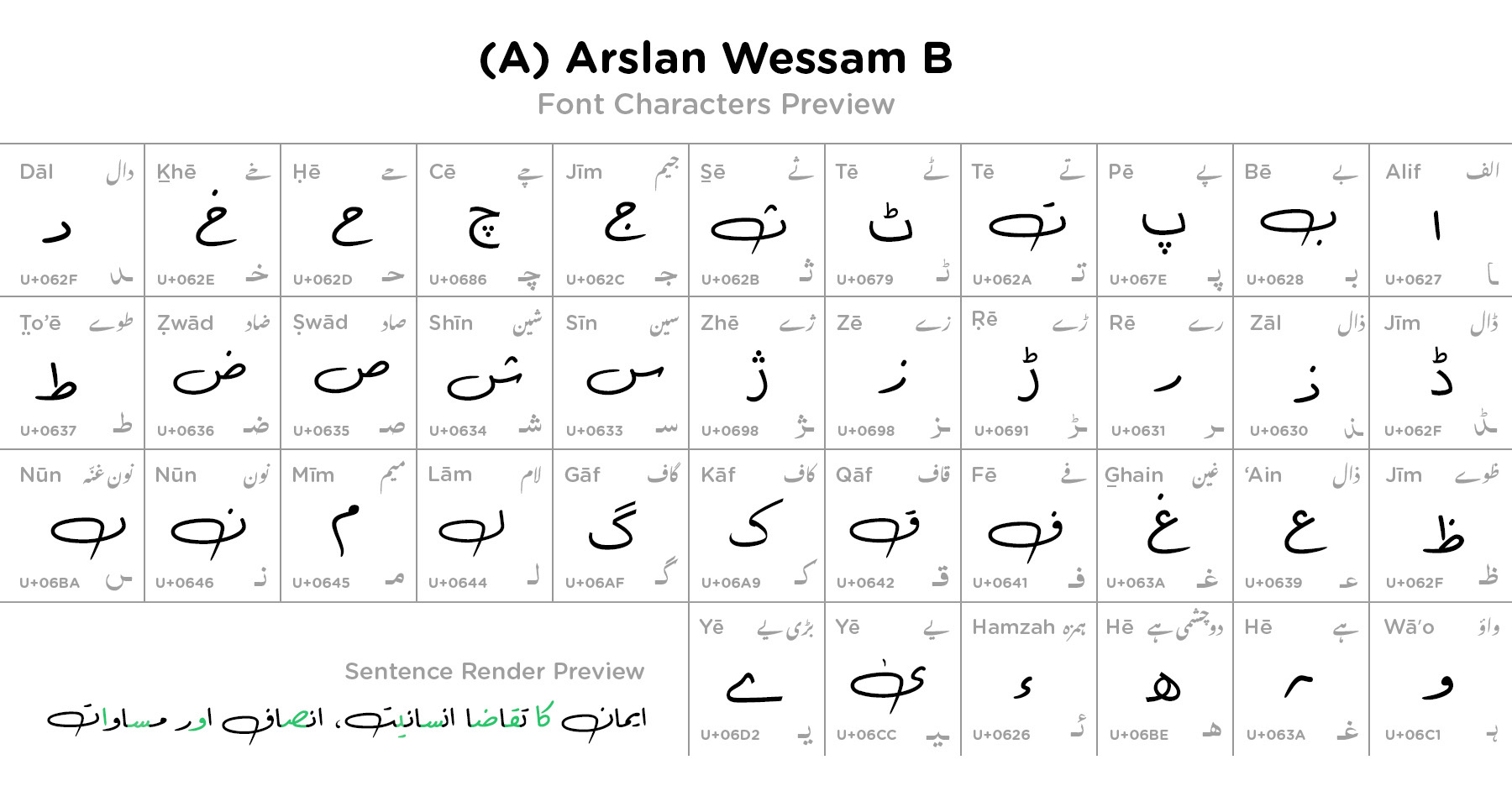
(A) Arsalan Wessam B was released on October 6, 2017, by designer Arslan Wessem and presents a decorative hand-written and cursive Arabic font. Drawing inspiration from the Diwani script, it includes various modern decorative elements, resulting in a beautiful flowing appearance with long and overlapping terminals. With 668 characters and 1331 glyphs, the font offers enough room to effortlessly fulfill various design needs across several digital platforms. Moreover, it supports Arabic, Urdu, Greek, Persian, and more languages for a diverse typographic experience that aids in multilingual projects. Maintaining a constant thickness and strong stroke, the font offers a clear and impactful presence.
However, having only one font weight impacts its adaptability, limiting its demand and use. Suitable for short and long textual blocks, despite its informal appearance characterized by long curly terminals, soft edges, uneven spacing, and slight roundness in its letters. Moreover, it offers high legibility on screens, even at smaller sizes, making it a perfect choice for different design projects. Ideal for applications such as book covers, logos, digital signatures, poetry, and calligraphy, this font’s informal nature adds a personal touch to various design projects. Unicode support extends from Basic Latin to Arabic Presentation Forms-B, ensuring compatibility across platforms and applications. Arsalan Wessam B is ideal for designers seeking a decorative yet accessible Arabic font option.